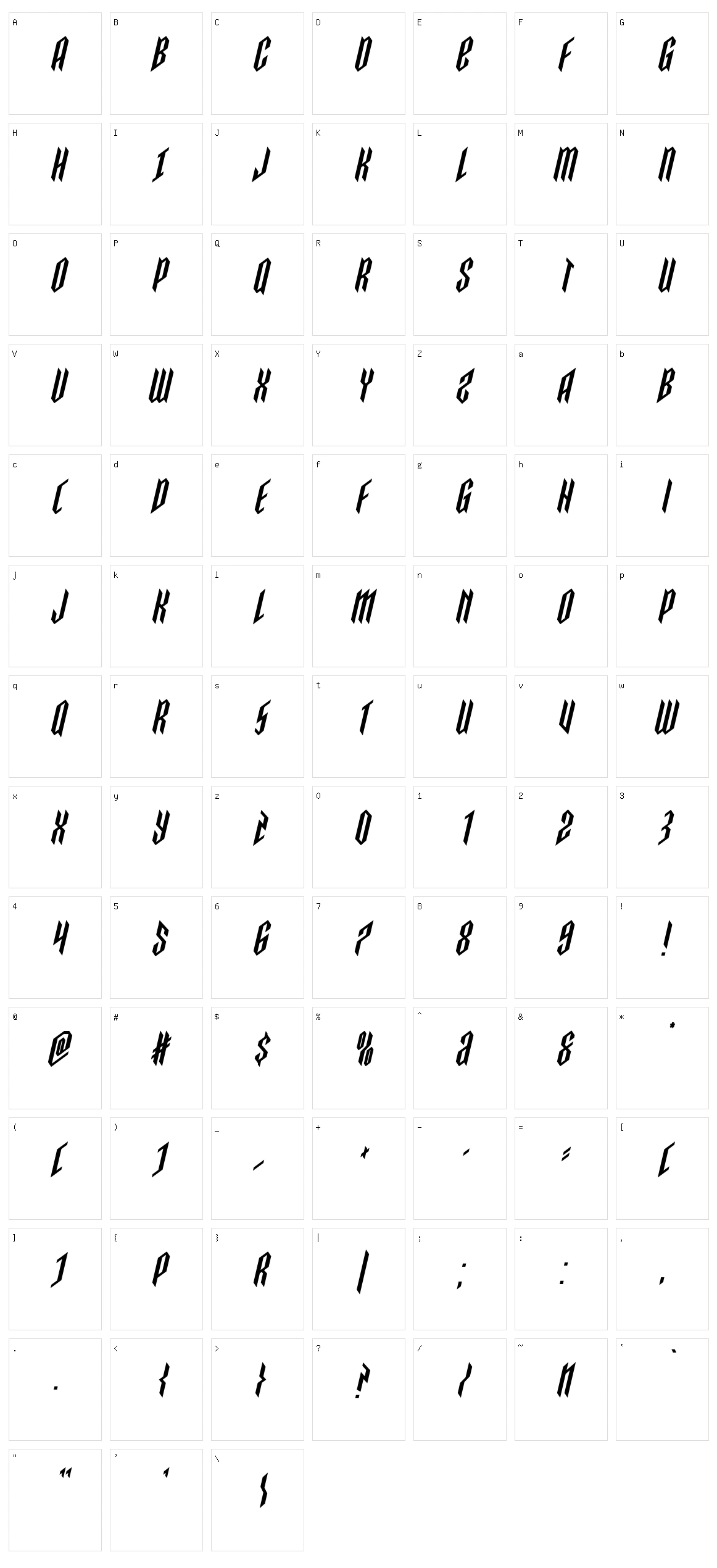
Saint Martyr
Description: The free font Saint Martyr is carefully designed by Iconian Fonts, showcasing a thoughtful balance of creativity and usability and belongs to the Gothic font family. When you download the ZIP file, it contains only 202.41 KB of font files, making it lightweight and quick to download. Please review the license details below to understand permitted usage and distribution rights. If license information is not available, we recommend using this font for personal projects only or contacting the author directly for commercial usage permissions.
This font comes with the following 16 versions: Regular, Italic, Rotalic, Semi-Italic, Super Italic, Leftalic, Semi-Leftalic, Super-Leftalic, Condensed, Condensed Italic, Expanded, Expanded Italic, 3D, 3D Italic, Spaced and Spaced Italic.